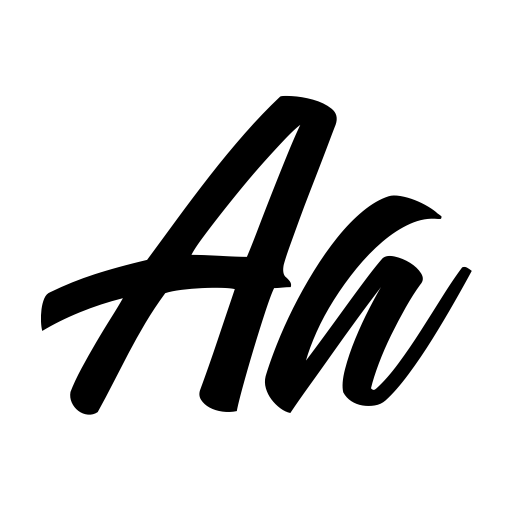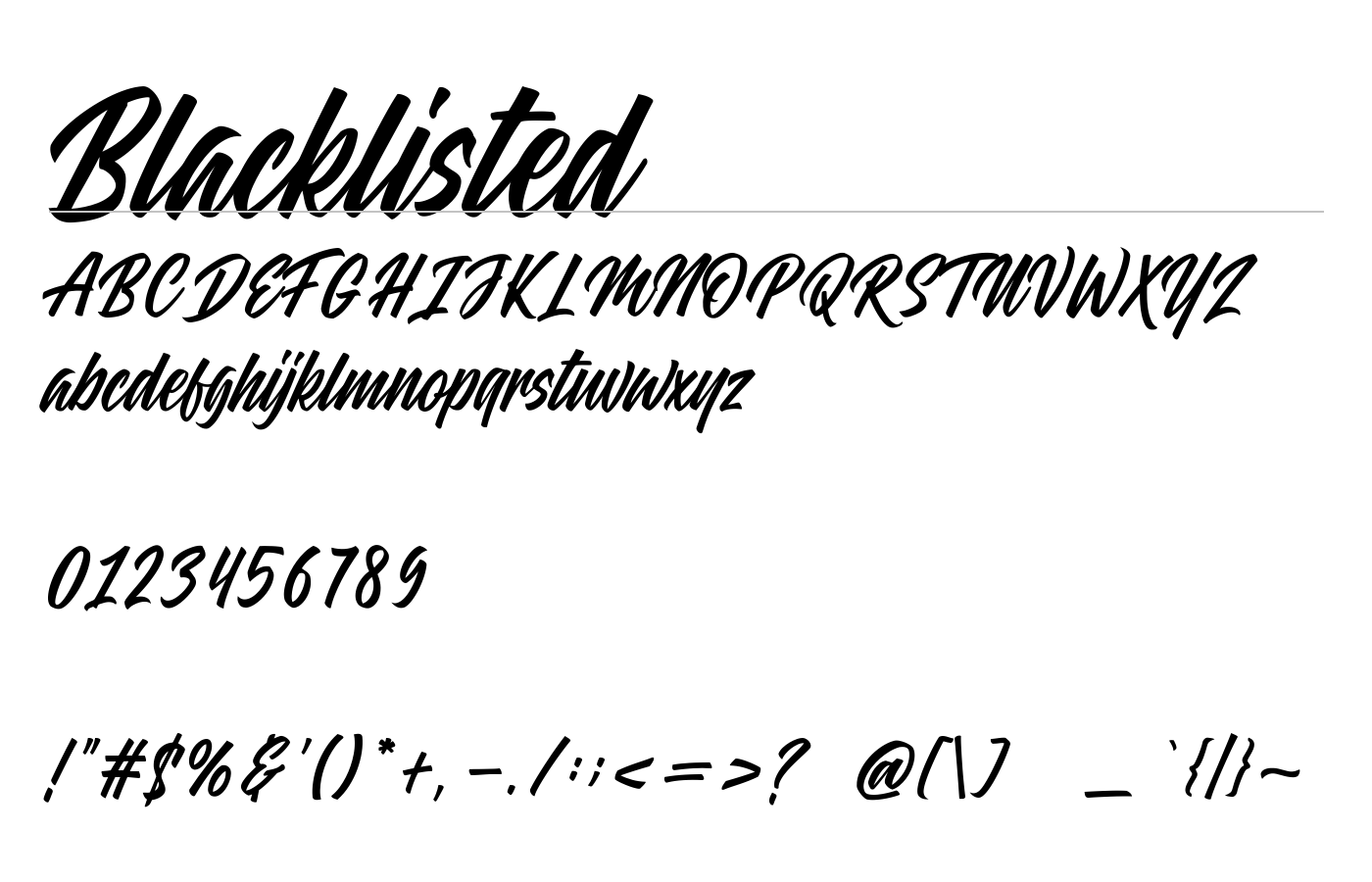
Blacklisted Font is a dynamic script typeface that features fluid, italicized strokes with a medium weight and a slightly condensed width. Its lively, hand-brushed style delivers a modern, casual elegance with smooth curves and sharp edges, making it perfect for creating expressive, energetic headlines and branding that feels both personal and stylish. This font works well in fashion, packaging, and editorial designs where a touch of bold, sophisticated flair is needed.
Blacklisted Font
About Blacklisted Font
| Font family | Blacklisted Font |
| Designer | Anton Cahyono |